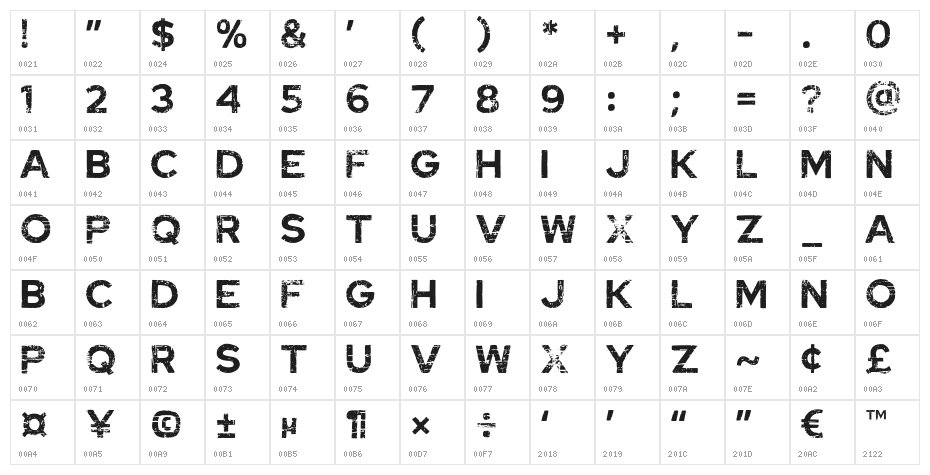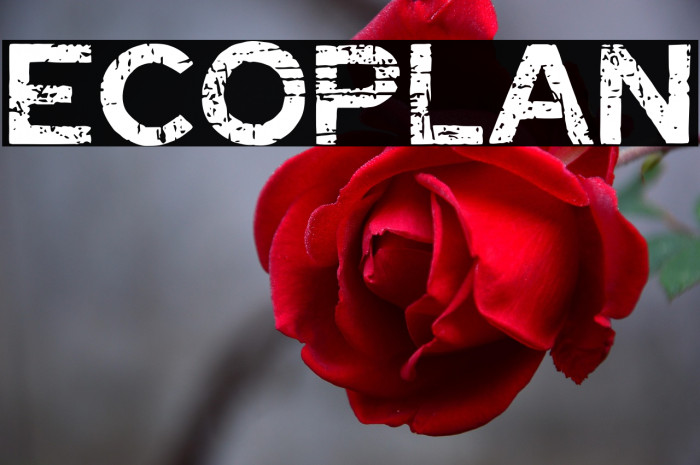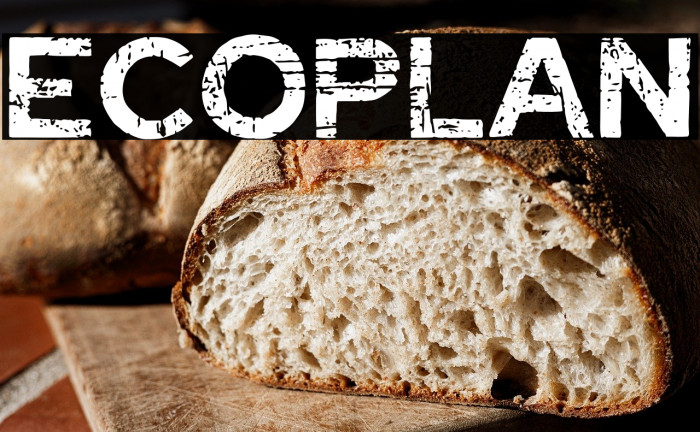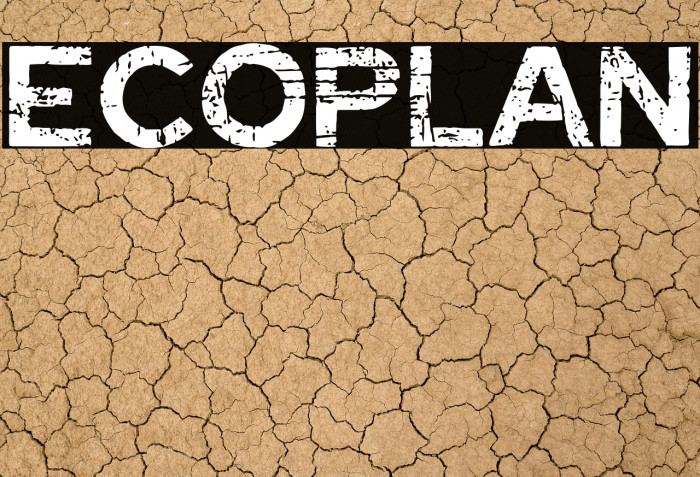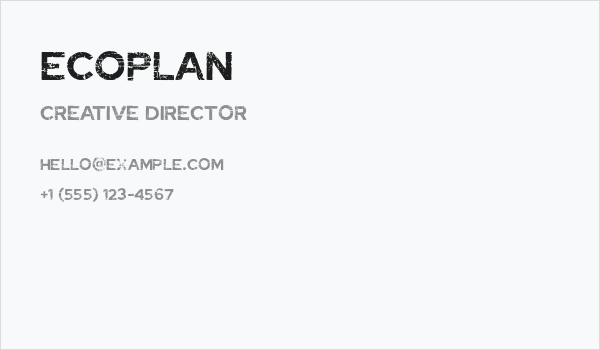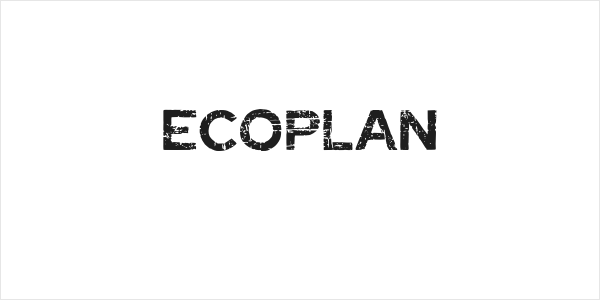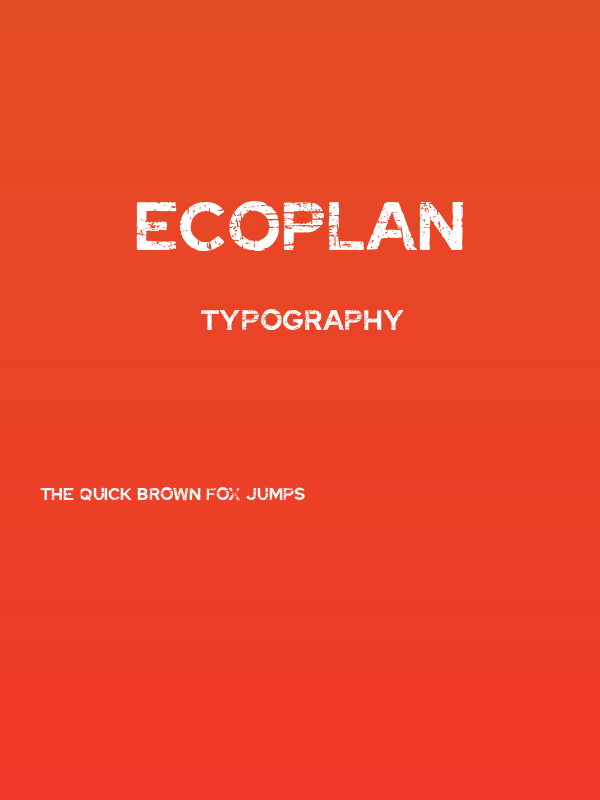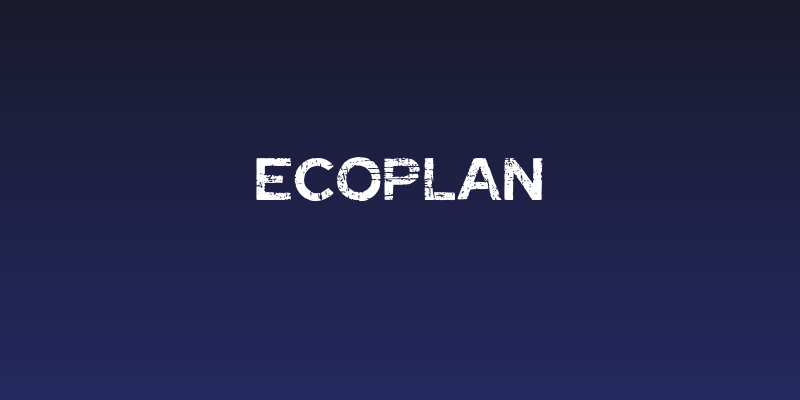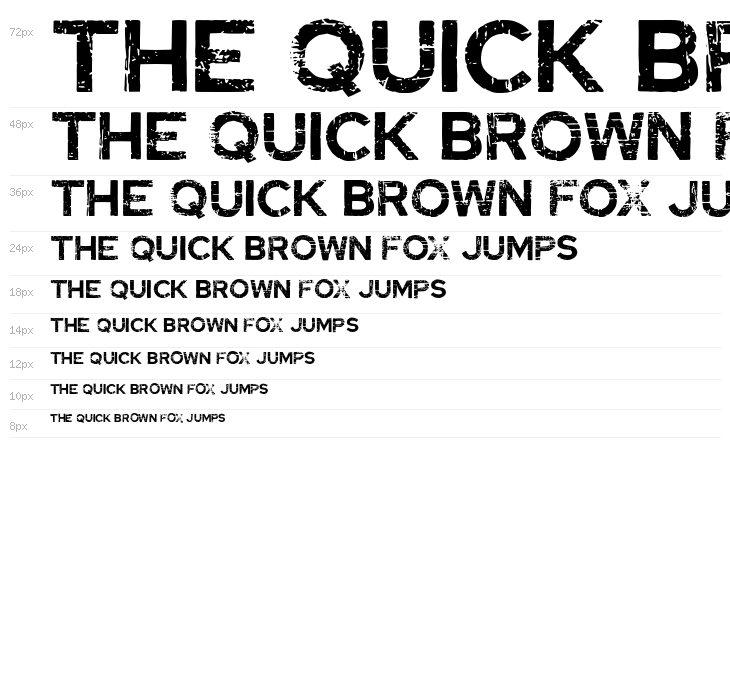
Ecoplan Font
Ecoplan Description
This font features a distressed, grunge style with a textured appearance that gives it a worn and rugged look. The characters are bold and impactful, with a consistent level of distressing across both uppercase and lowercase letters, as well as numbers and special characters. The style is reminiscent of urban street art or vintage posters, making it ideal for projects that require a raw, edgy aesthetic. Despite its rough texture, the font maintains good legibility, ensuring that text remains readable even at smaller sizes.
| Overall Style | Grunge, Urban, Vintage |
| Proposed Projects | Ideal for album covers, posters, branding for edgy or alternative products, and any design needing a gritty, urban feel. |